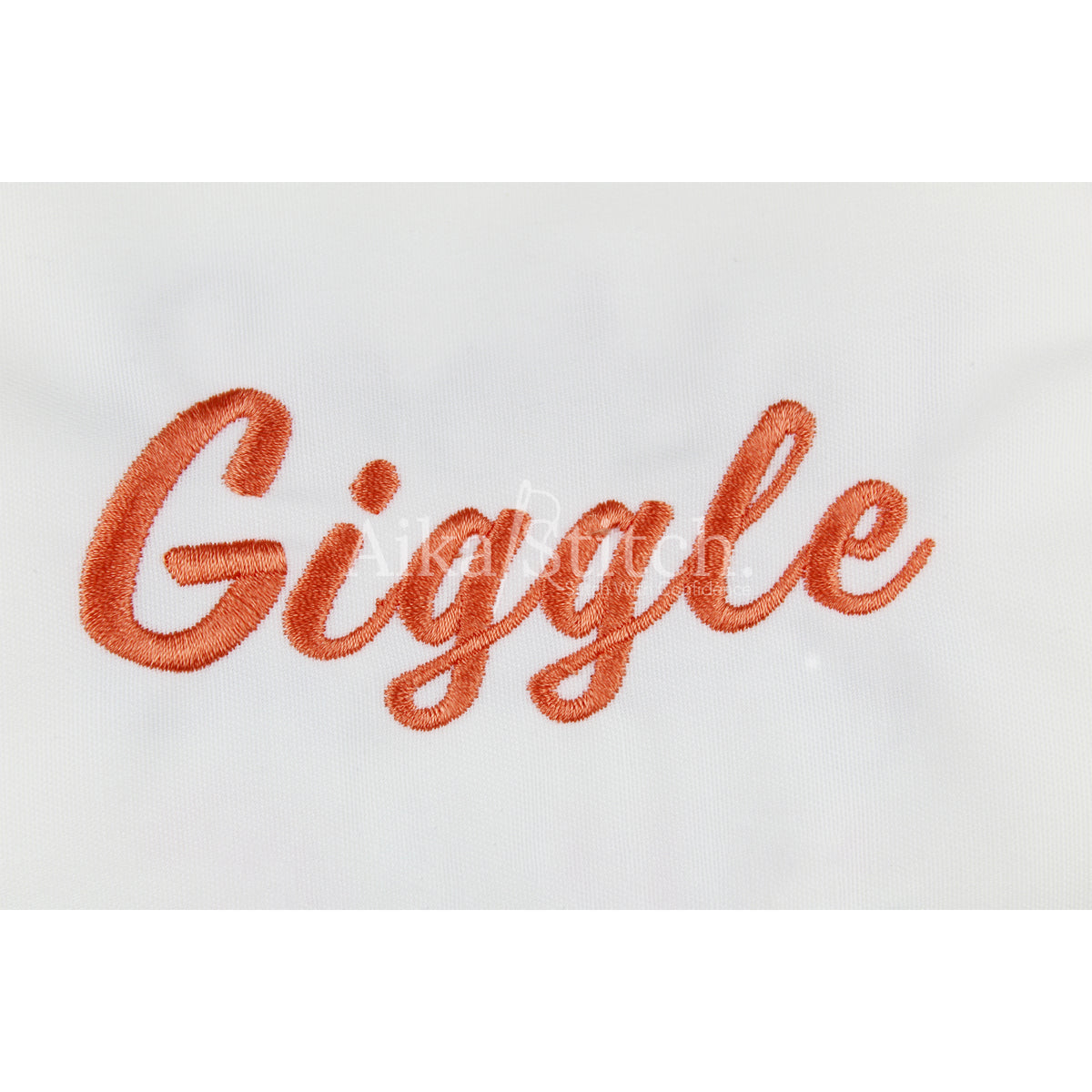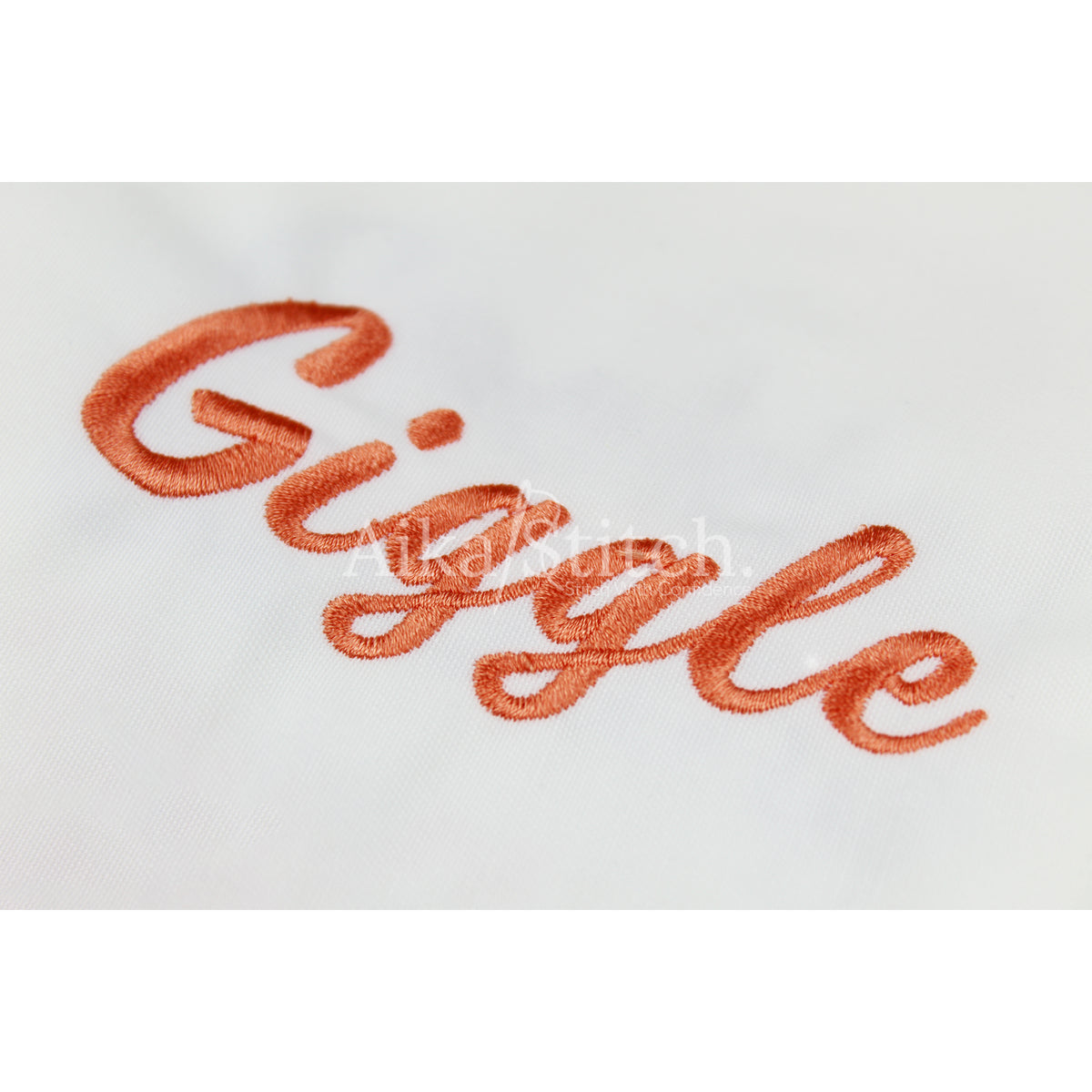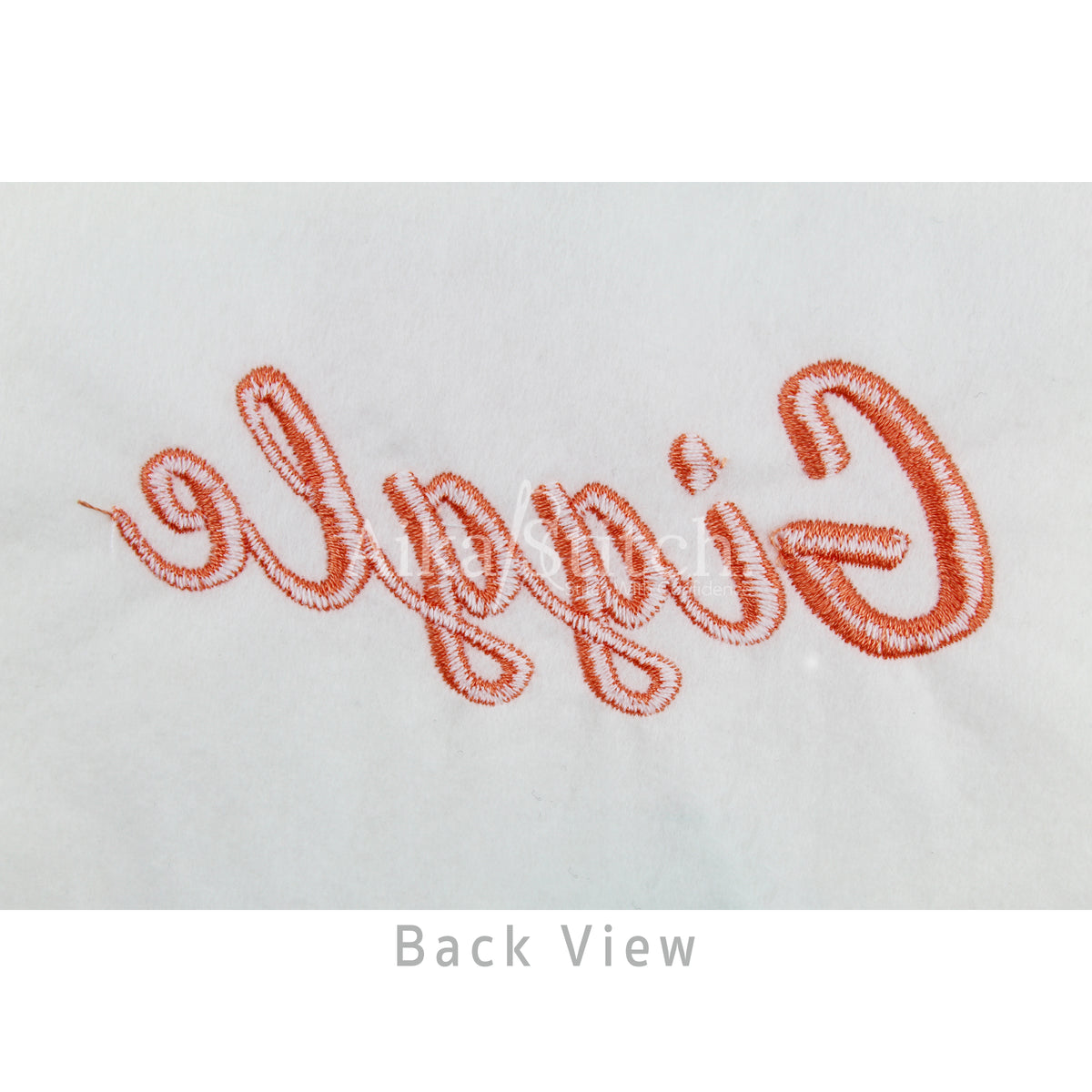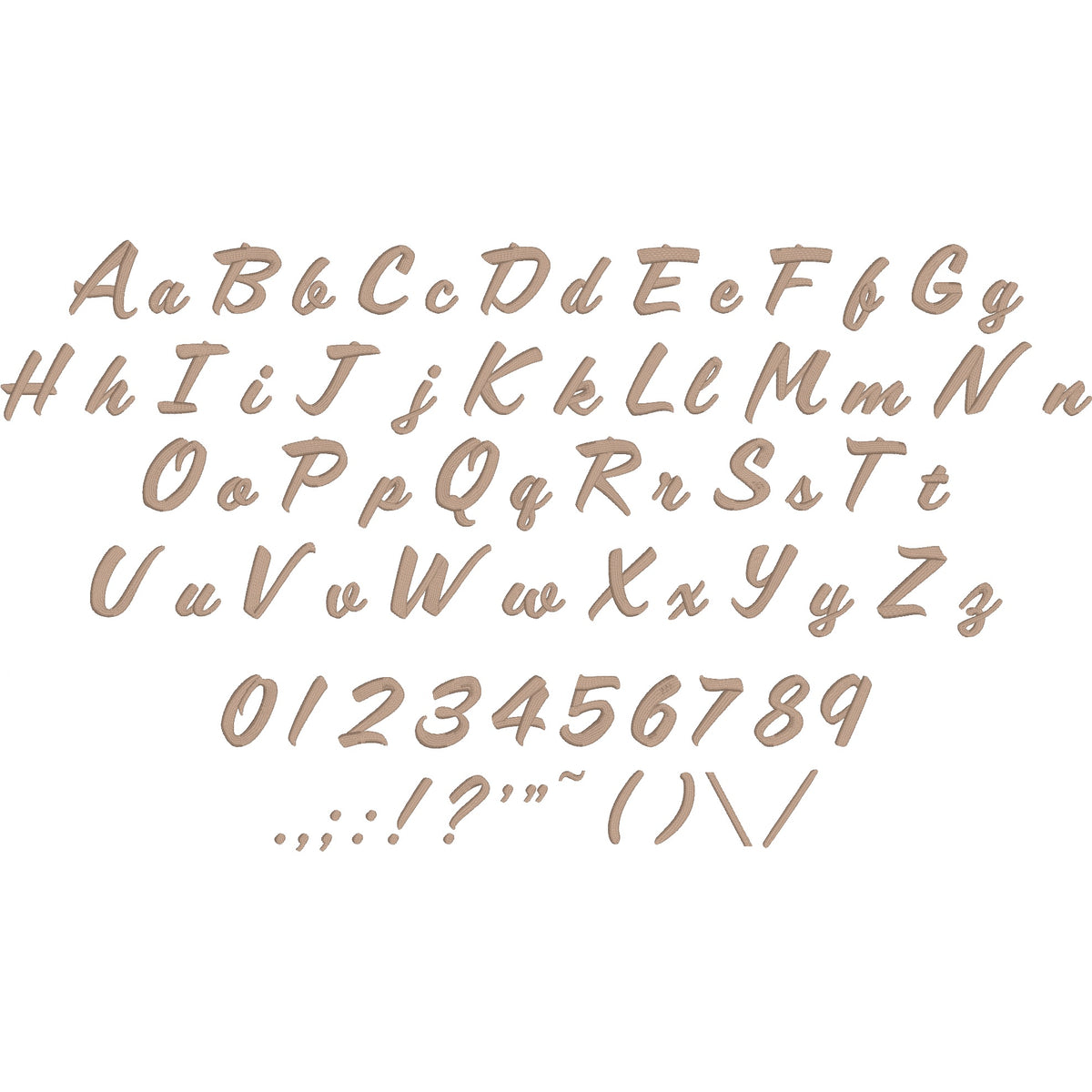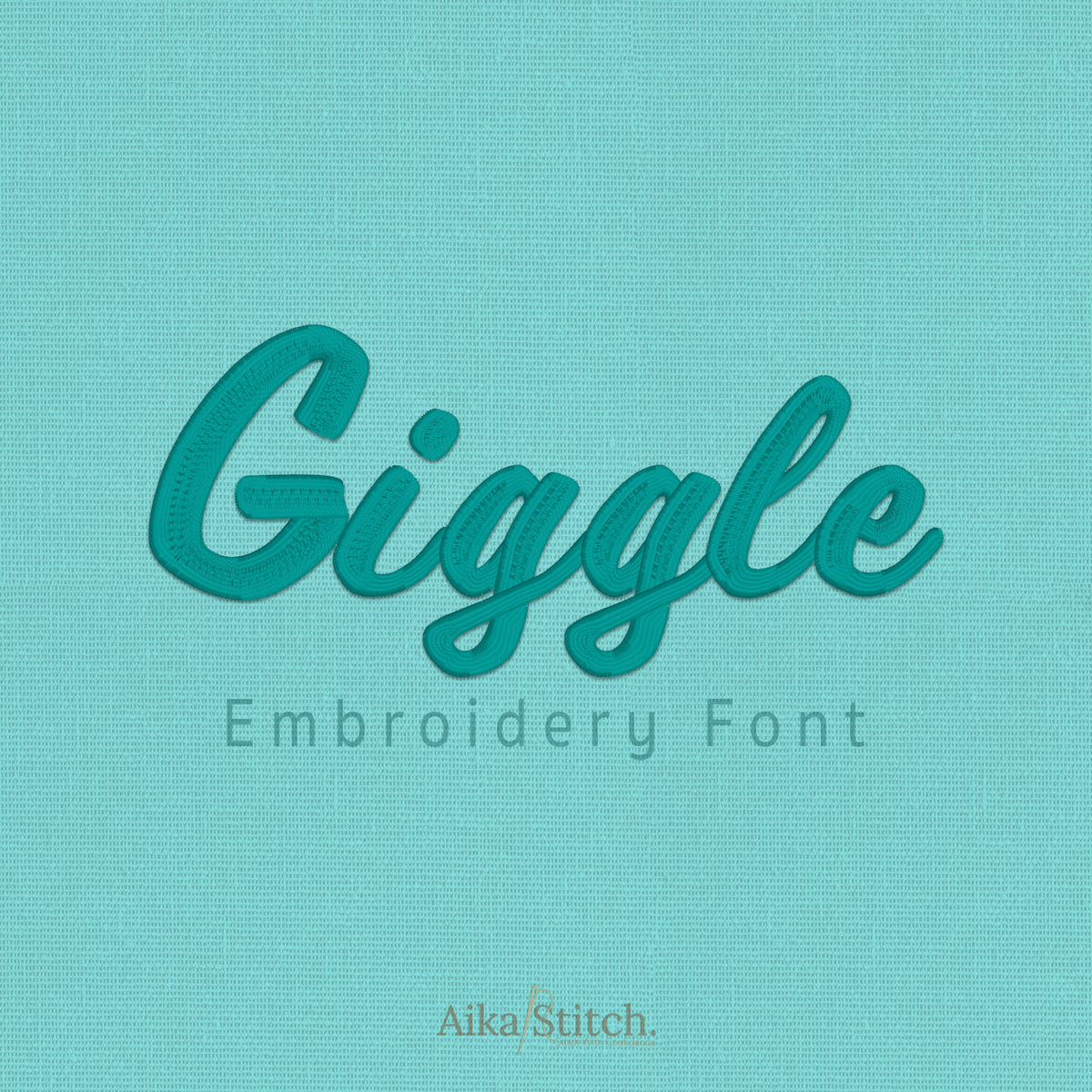
Giggle Script Cursive Embroidery Font | Native BX Included
Giggle is a Script Cursive machine embroidery font featuring beautiful satin stitch lettering. Perfect for shirts, towels, hats, baby gifts, monograms, and small business embroidery projects.